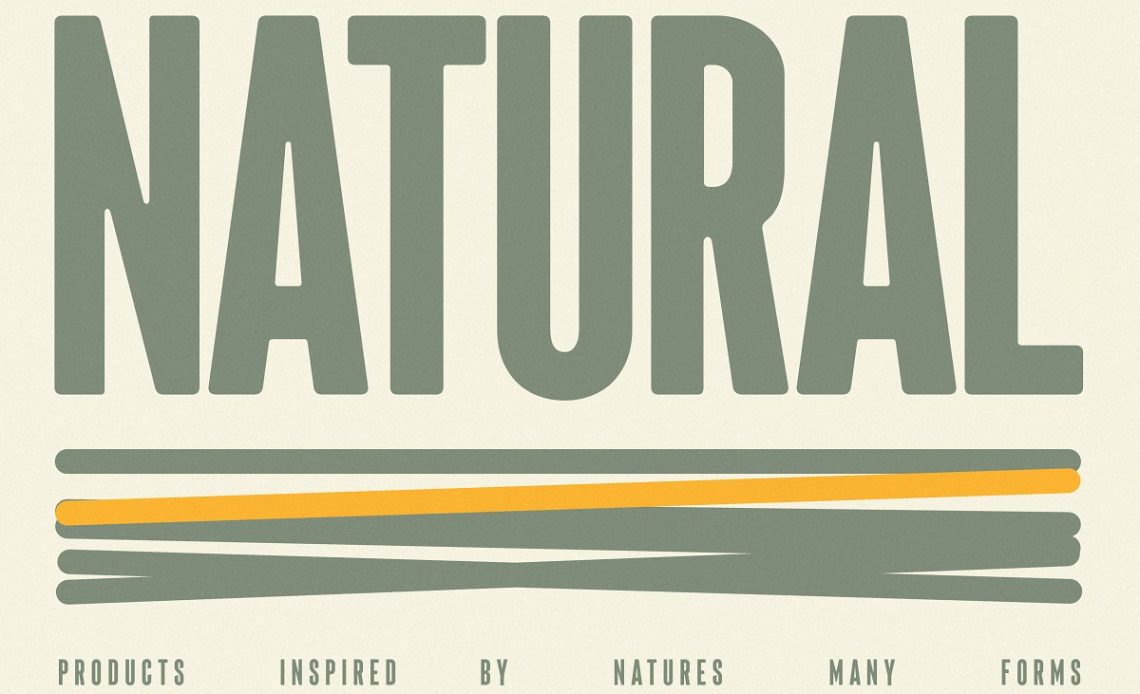
Introducing Sherman Typeface - the best font for brochure design! Created by Ellen Luff, this sans serif font is a gentle giant in the world of Typefaces, with a soft yet assertive nature that makes it perfect for giving your headlines a confident and imposing base, while still feeling warm and friendly.
Sherman has its own unique personality that sets it apart from other tall typefaces. With sleek slanted terminals and optical adjustments, it strikes the perfect balance between big and heavy. Plus, it supports many latin languages (including Vietnamese) and all European languages, making it versatile and ideal for any design project.
As an all caps font, Sherman performs best at large sizes, making it perfect for headlines, titles, signage, branding and designs that require a big impact. Its rounded ink traps and softened edges make it equally great for use in print or pixels, ensuring that your designs will stand out from the crowd.
What's more, Sherman gets its name from General Sherman, the world's largest known living tree, located in Sequoia National Park. So, not only will you be getting a font that is both beautiful and functional, but you'll also be connecting with nature in a meaningful way.